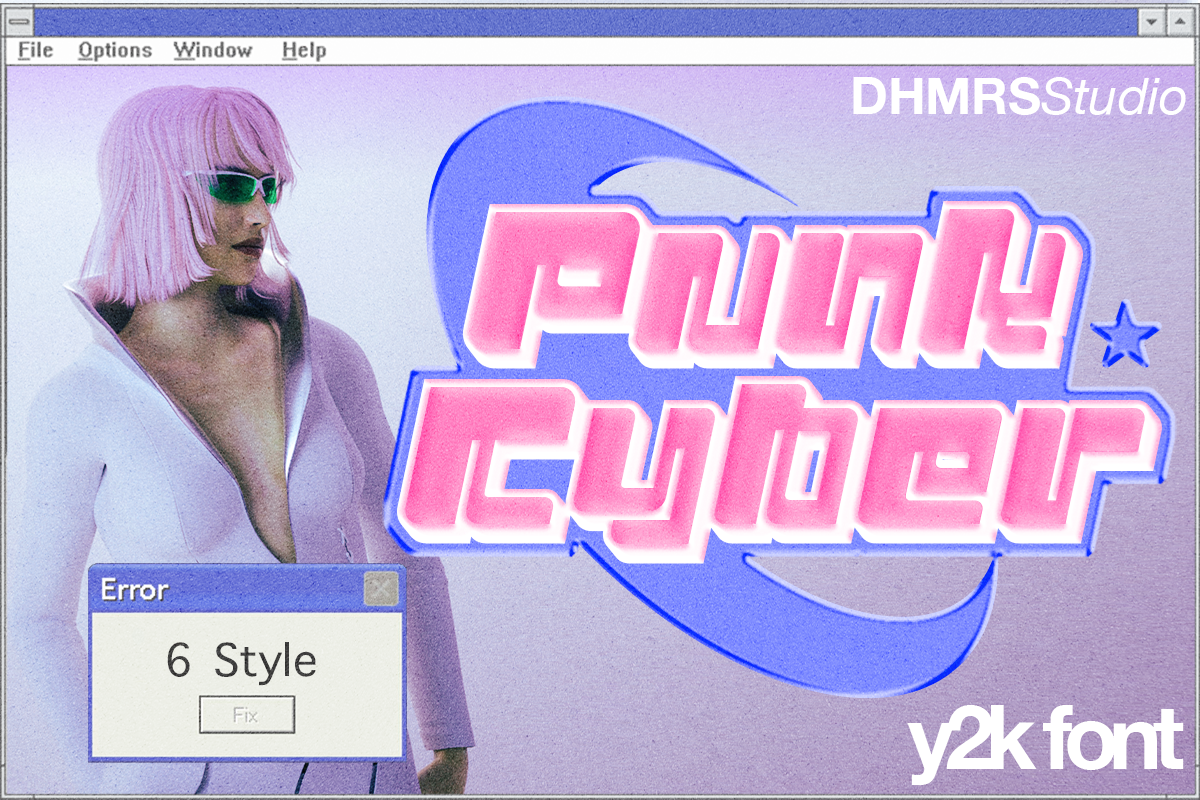
Punk Cyber – Y2K Family Fonts Free Download is a bold and electrifying typeface collection inspired by the edgy tech aesthetics of the early 2000s. With its glitchy shapes, futuristic vibes, and retro-digital feel, this font family is perfect for cyberpunk themes, techwear branding, rave flyers, gaming graphics, and nostalgic Y2K designs.
Blending sharp geometric angles with a rebellious digital attitude, Punk Cyber includes multiple styles and weights to fuel your creative vision. Whether you’re channeling an old-school web aesthetic or designing for futuristic street fashion, this font family brings the perfect balance of chaos and control.